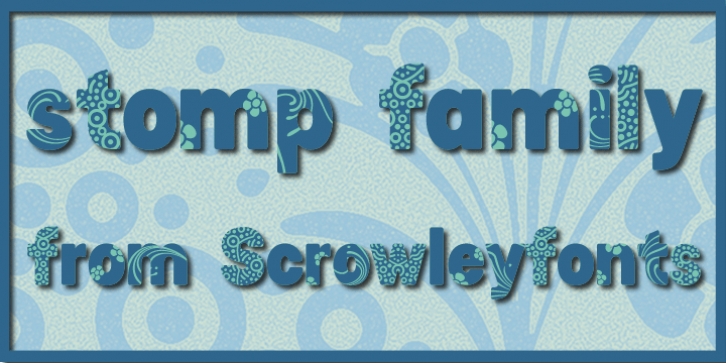
Stomp was designed by Tanya Davis and published by Scrowleyfonts. Stomp contains 4 styles and family package options.
The Stomp Family is a set of three different fonts, Swirl, Flowers and Circles which are designed to be used with Stomp Black to create dual colored type for bright and exciting images. Metrics and Kerning information for the four faces are identical so that they overlay perfectly. Stomp Black is also very usable on its own for bold, high impact type.
Stomp Swirl·
Stomp Black·
Stomp Circles·